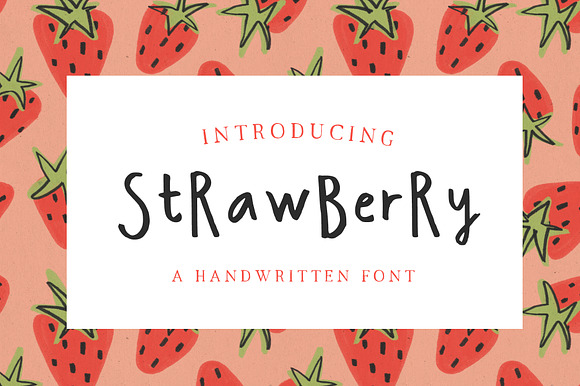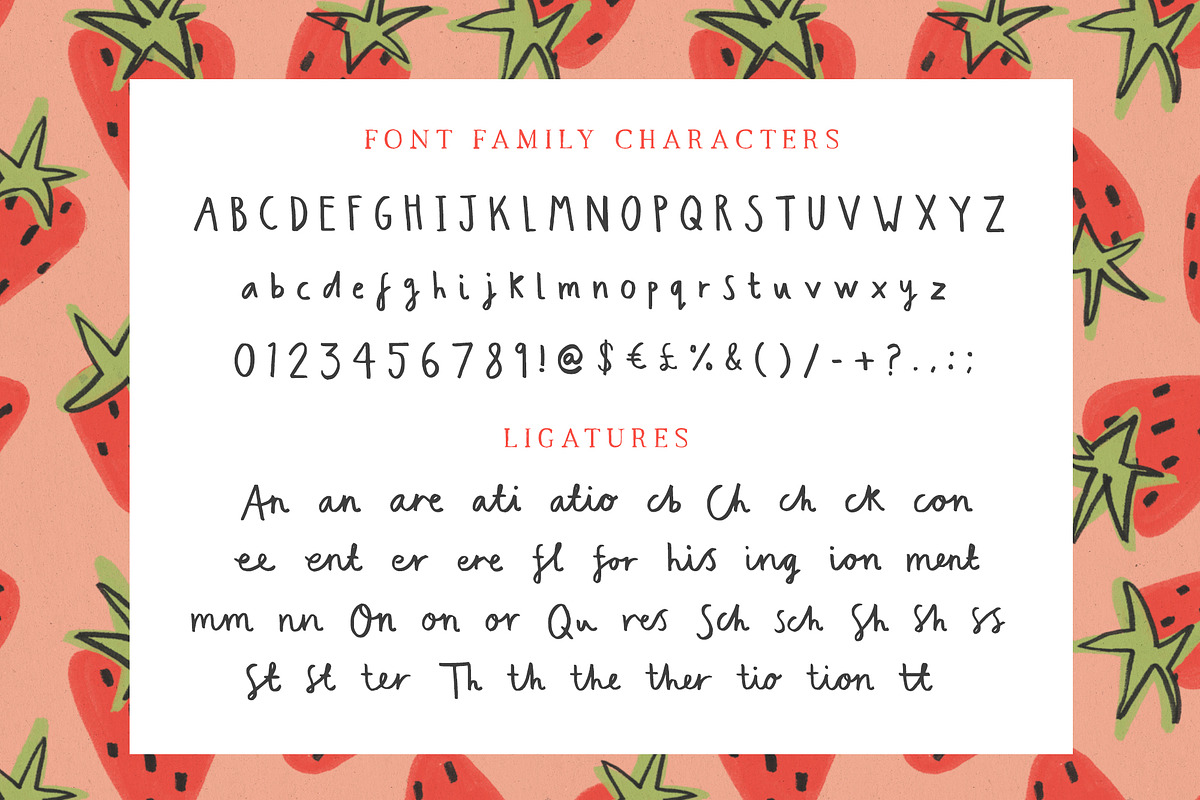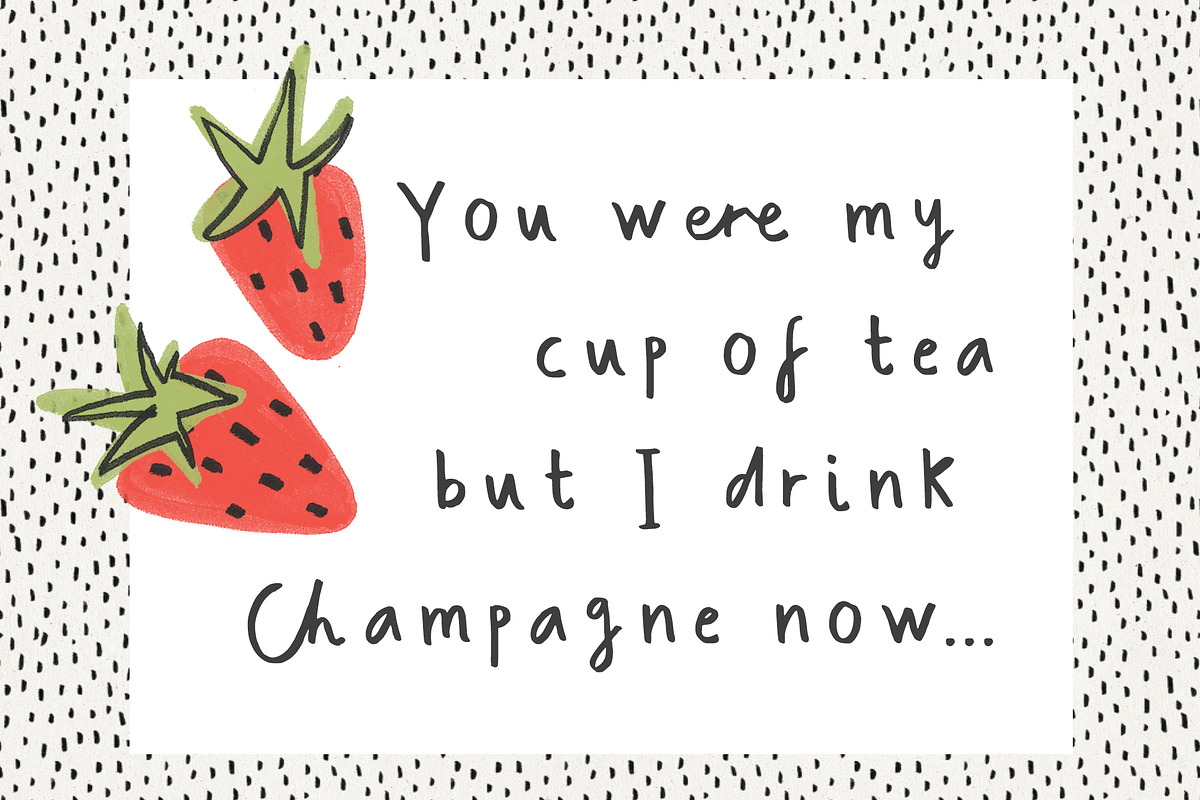
Strawberry Handwritten Font
Strawberry is a unique handwritten font created from my own handwriting. Its unique flow and easy signature style makes it perfect to use for logos, signatures, quotes, badges, labels, packaging design, blog headlines or simply use it in your next design project.
Strawberry comes with upper and lowercase Basic Characters, Numbers, Marks and Punctuation. As a feature you have also the standard Ligatures and Alternates.